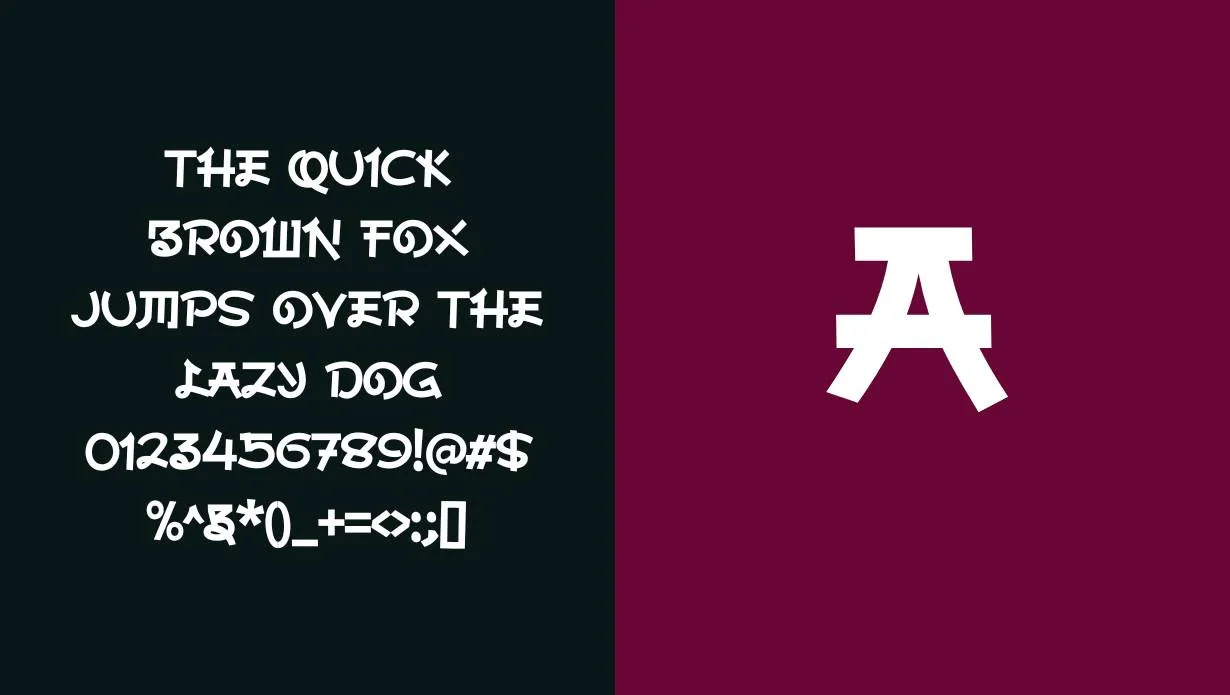
About Arigatou Gozaimasu Font
Arigatou Gozaimasu Font is a decorative typeface designed to visually represent the Japanese phrase for "thank you very much." These fonts often emulate the fluid strokes of Japanese calligraphy (shodo) or use playful, stylized letterforms with cultural motifs. They are specifically crafted for projects that require an authentic or thematic expression of gratitude, such as thank-you cards, cultural event posters, restaurant menus, or merchandise aimed at celebrating Japanese language and aesthetics.